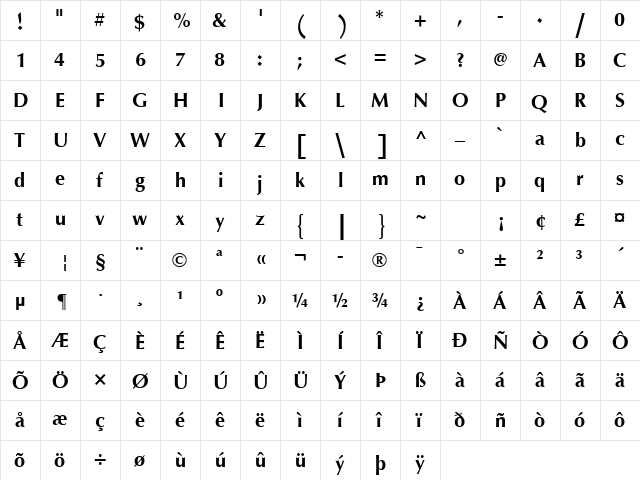
Jalal LT Bold
| Foundry | Linotype GmbH |
| Designer | Margaret Tan |
Design Context for Jalal LT Typeface
Jalal LT offers clean, dependable letterforms without strong stylistic allegiance, making it a practical choice for designers who need flexibility. The heavy weight commands attention and anchors typographic hierarchies.